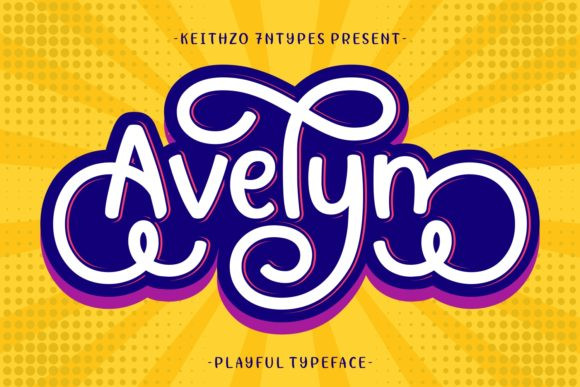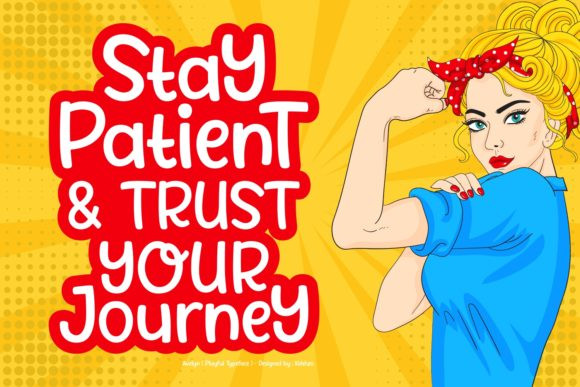
Avelyn Font
Make your designs stand out with the Avelyn script font. It is a font that can be simple but also decorative when used in combination with its available swashes. This font is PUA encoded which means you can access the available glyphs and swashes with ease!